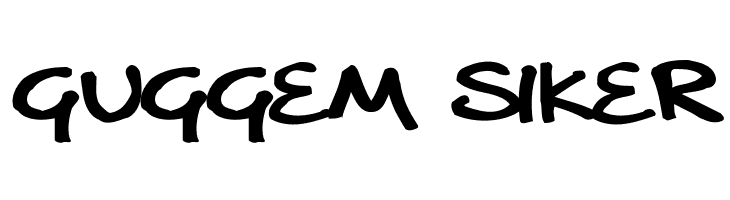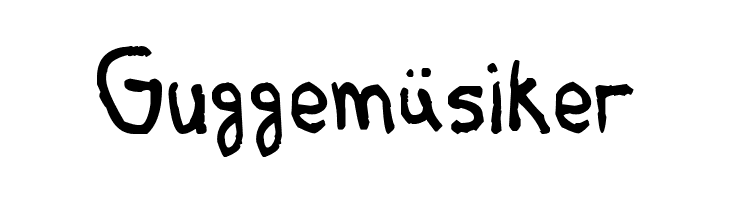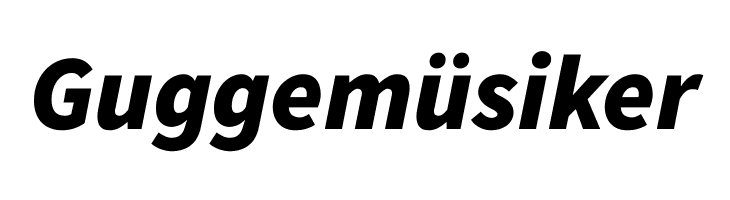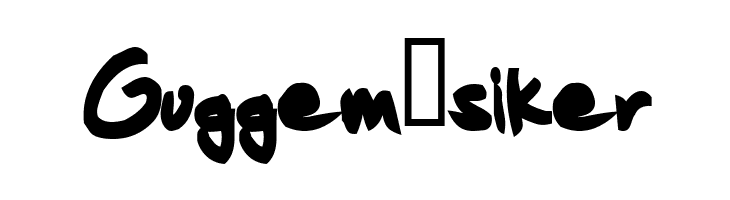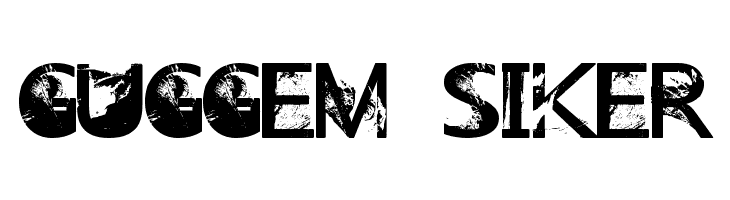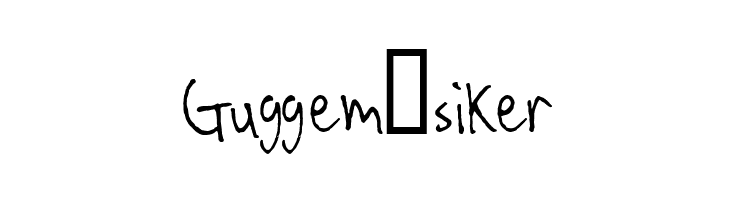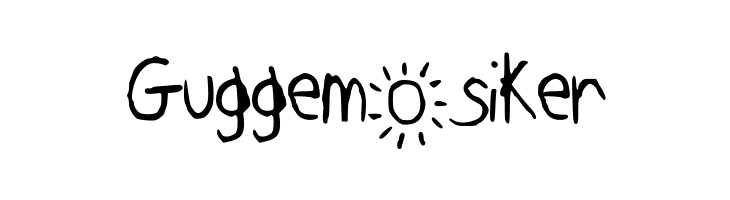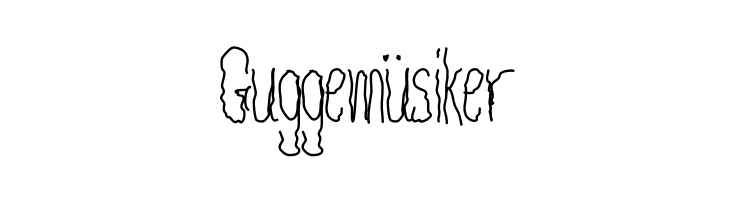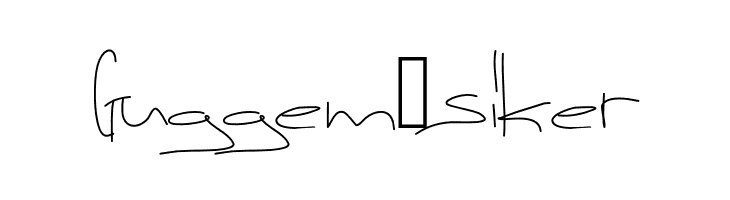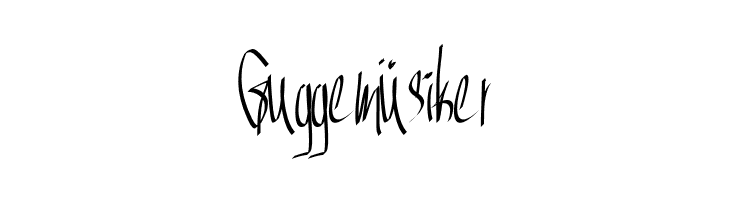
A bold, handwritten marker-style font with dynamic and lively strokes.
A bold, playful handwritten font with a chunky, informal style.
A bold, distressed font with a weathered, vintage look.
A casual, handwritten font with playful, irregular strokes.
A wavy, trembling font with thin, irregular strokes for a dynamic look.
A whimsical, hand-drawn font with elongated, irregular letterforms.
A dynamic, expressive font with tall, narrow letterforms and sharp strokes.
A dynamic and elegant script font with flowing letterforms and artistic flair.
A playful, quirky handwritten font with tall, narrow letters and irregular strokes.
A bold, italic font with a modern and dynamic style.
A bold, distressed font with a spooky, ghostly aesthetic.
A distressed, grungy font with bold, irregular strokes and a chaotic aesthetic.
A bold, textured font with a hand-drawn, artistic style.
A bold, dripping font with a playful and creative style.
A distressed, grunge-style font with a bold, textured appearance.
A bold, italicized font with a modern and sleek appearance.
A bold, brush-style font with high contrast and dynamic strokes.
A bold, italicized font with a gradient effect and textured horizontal lines, ideal for dynamic designs.
A bold, distressed font with a rugged, chaotic appearance.
A bold, italic, distressed font with a grunge aesthetic and dynamic style.
A bold, energetic script font with sweeping strokes and a lively, handwritten style.
A bold, expressive font with a hand-drawn, dynamic style.
A bold, distressed font with a rugged, industrial feel.
A bold, distressed font with a futuristic, gritty aesthetic.
A tall, hand-drawn font with an elongated, rustic style.